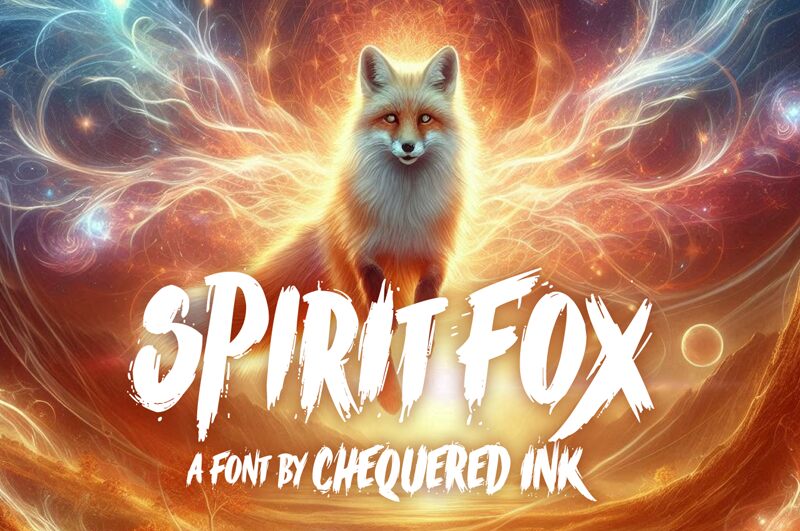
Spirit Fox
Spirit Fox font combines rugged texture and expressive brush strokes into an energetic impression with carefully designed elements. Its unique design lets you give texts extra character to match your different branding, poster, or social media needs. The creative brush typeface is bold and has a condensed width.
All the carefully crafted letters are hand-drawn, giving your texts a more personal look. It is free, allowing for endless experimentation in personal projects like comics, diaries, storybooks, postcards and others. More professional projects like packaging labels of fashion brands can also highly benefit from using Spirit Fox!